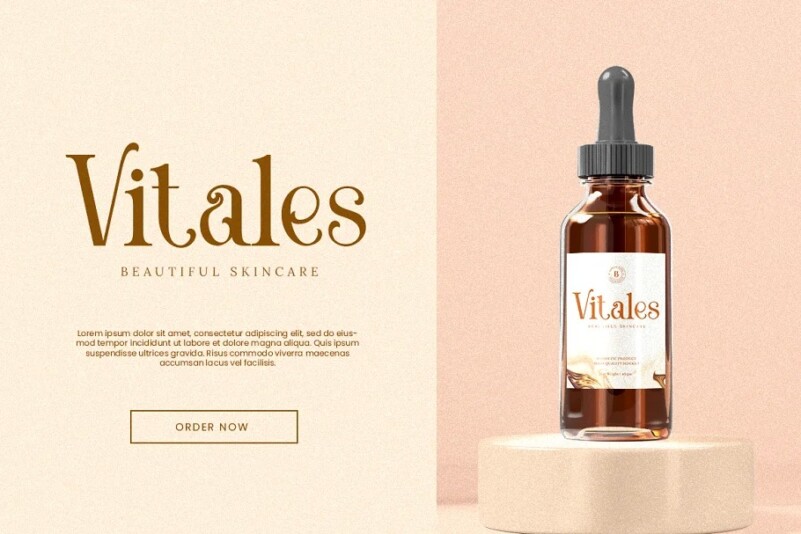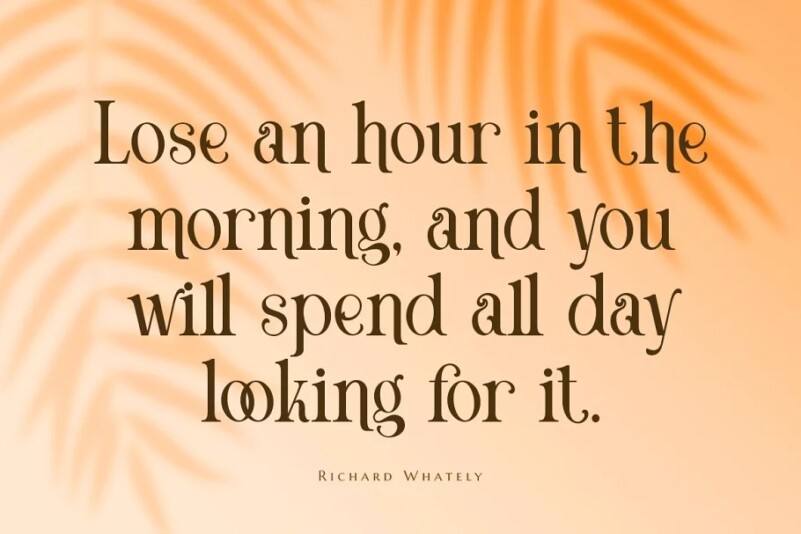
Koolegi Font
Koolegi Font is a classic, elegant, and glorious style font that uses ligatures to connect letters smoothly as well as many alternatives to make it more beautiful. Koolegi is perfect for branding projects, logos, wedding designs, social media posts, advertisements, product packaging, product designs, label, photography, watermark, invitation, stationery, and any projects that need handwriting taste.